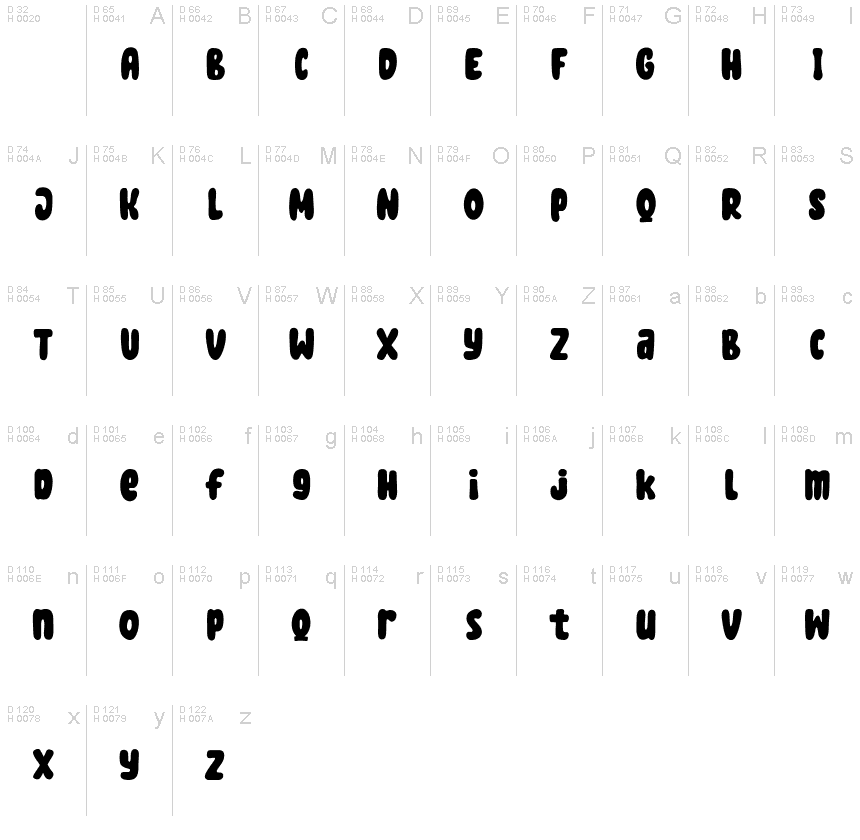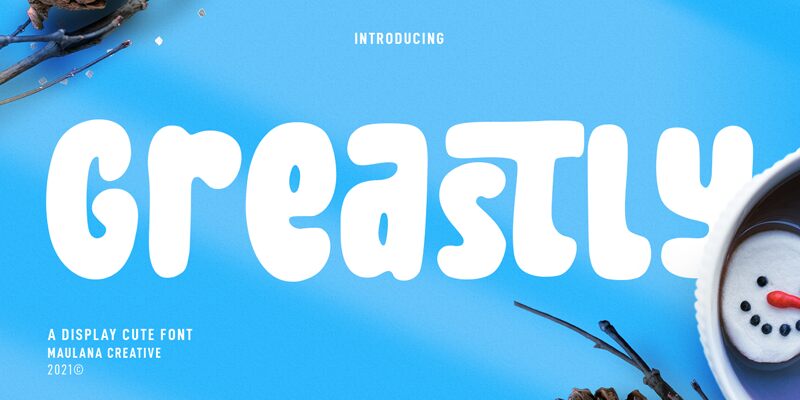
Greastly Free Regular
Greastly by Maulana Creative is a narrow, cartoon-style display font. It's perfect for projects that demand an imaginative and creative touch, like children's books and animated movies.